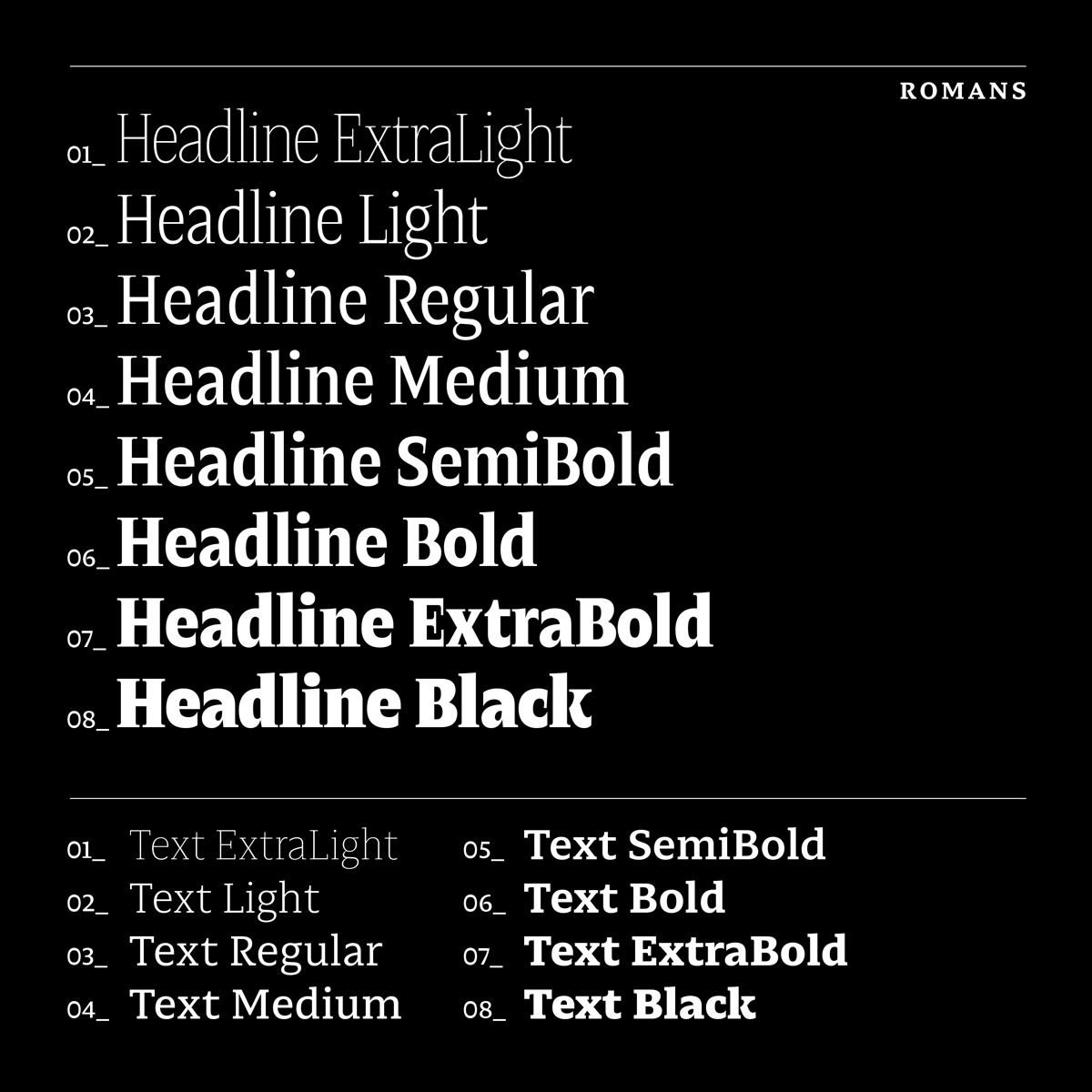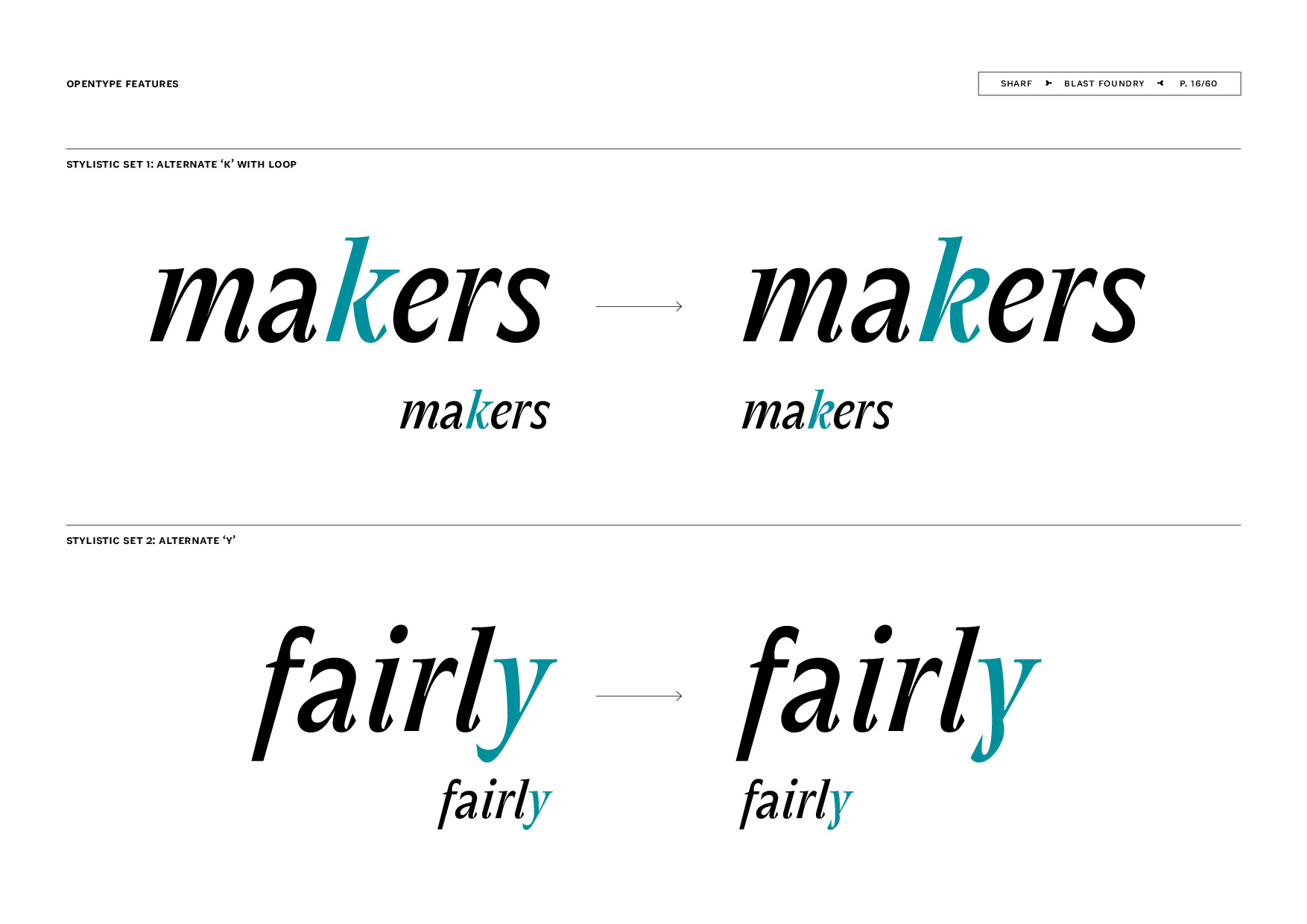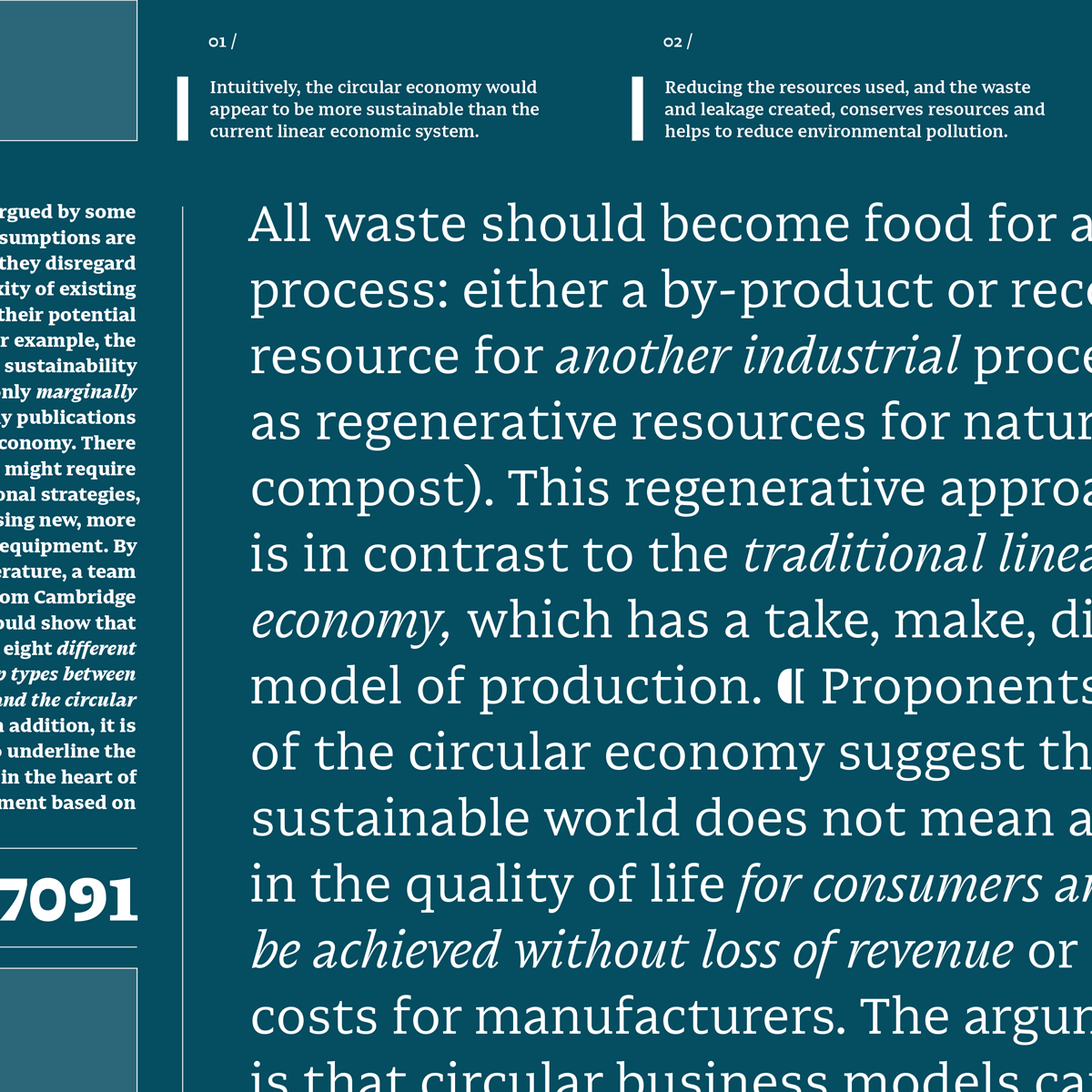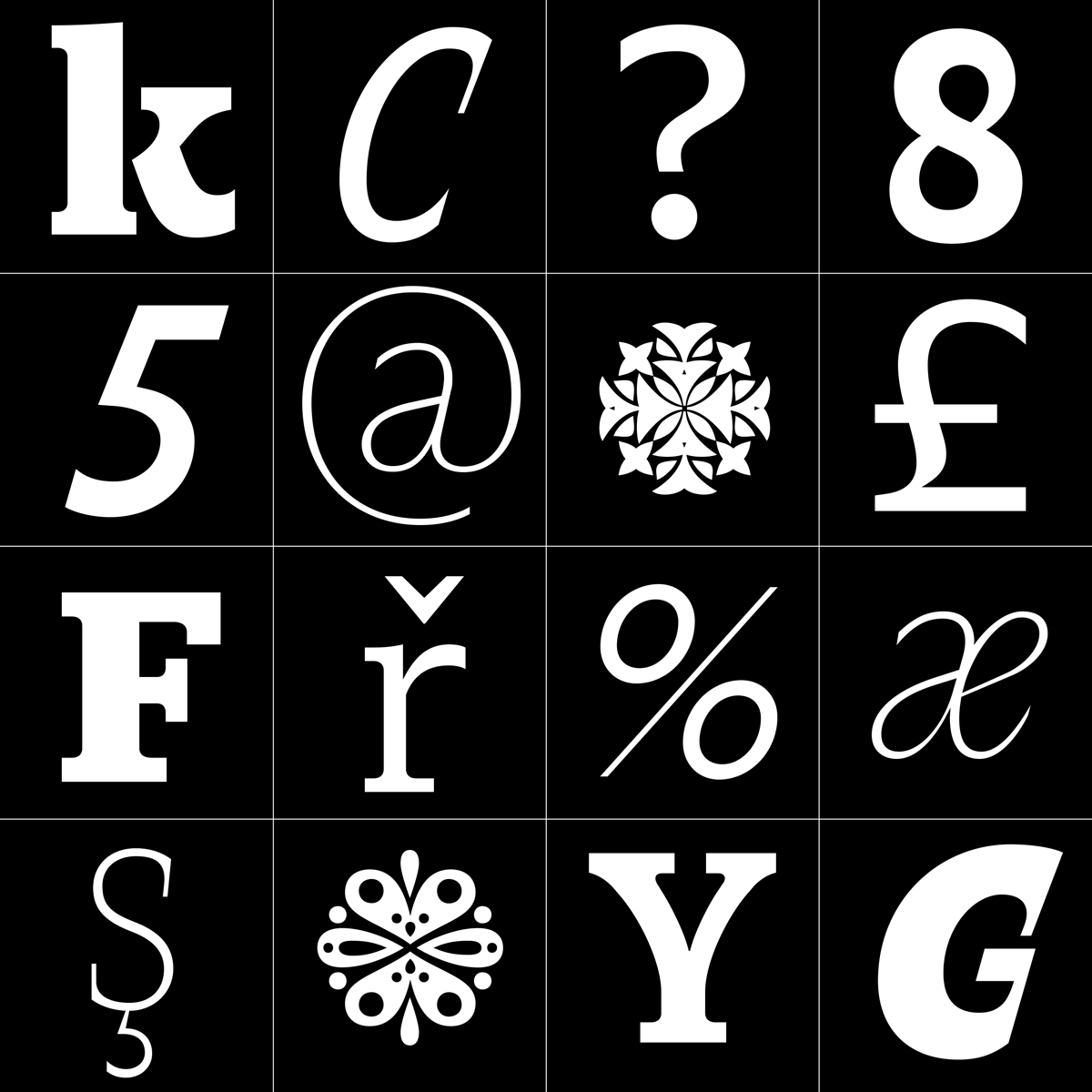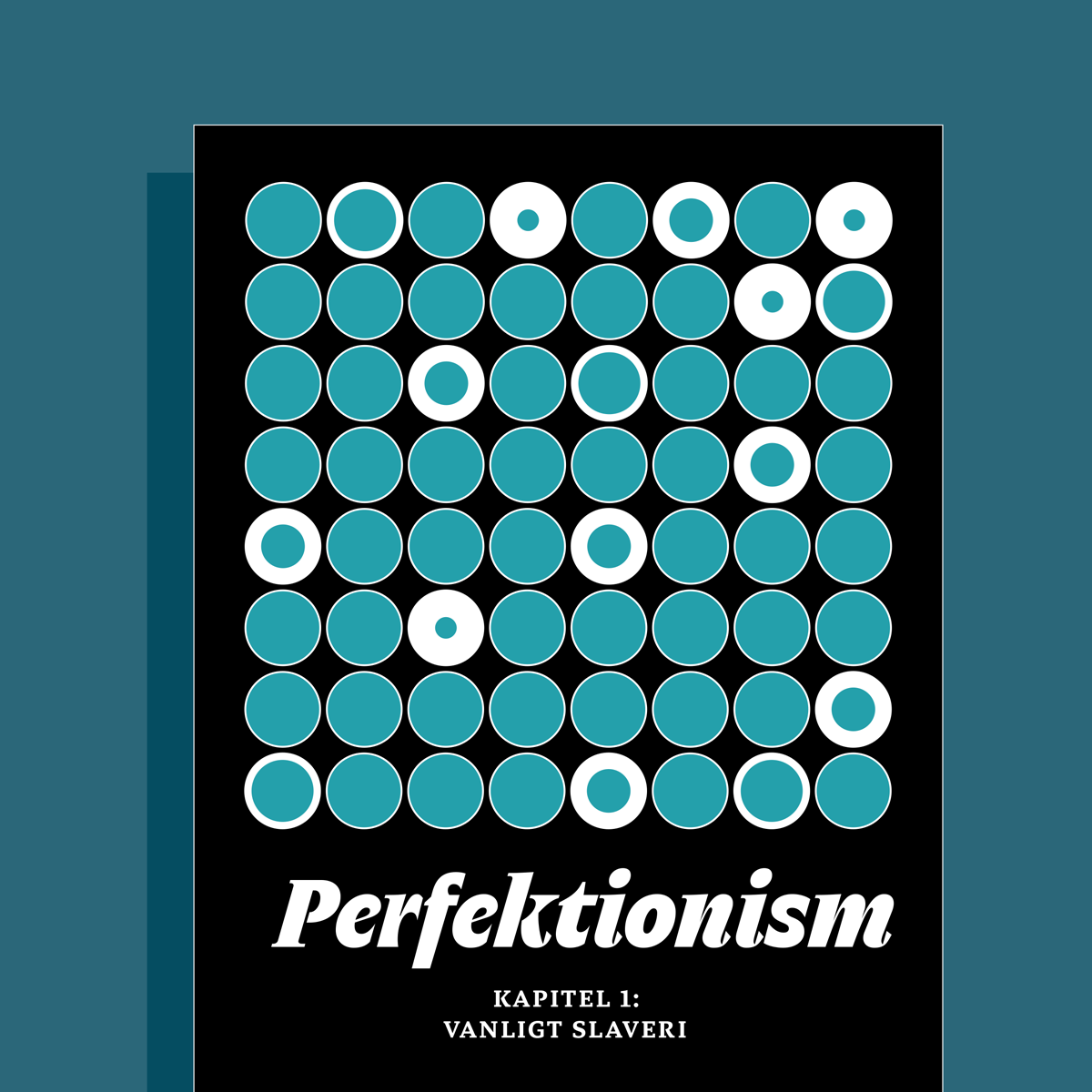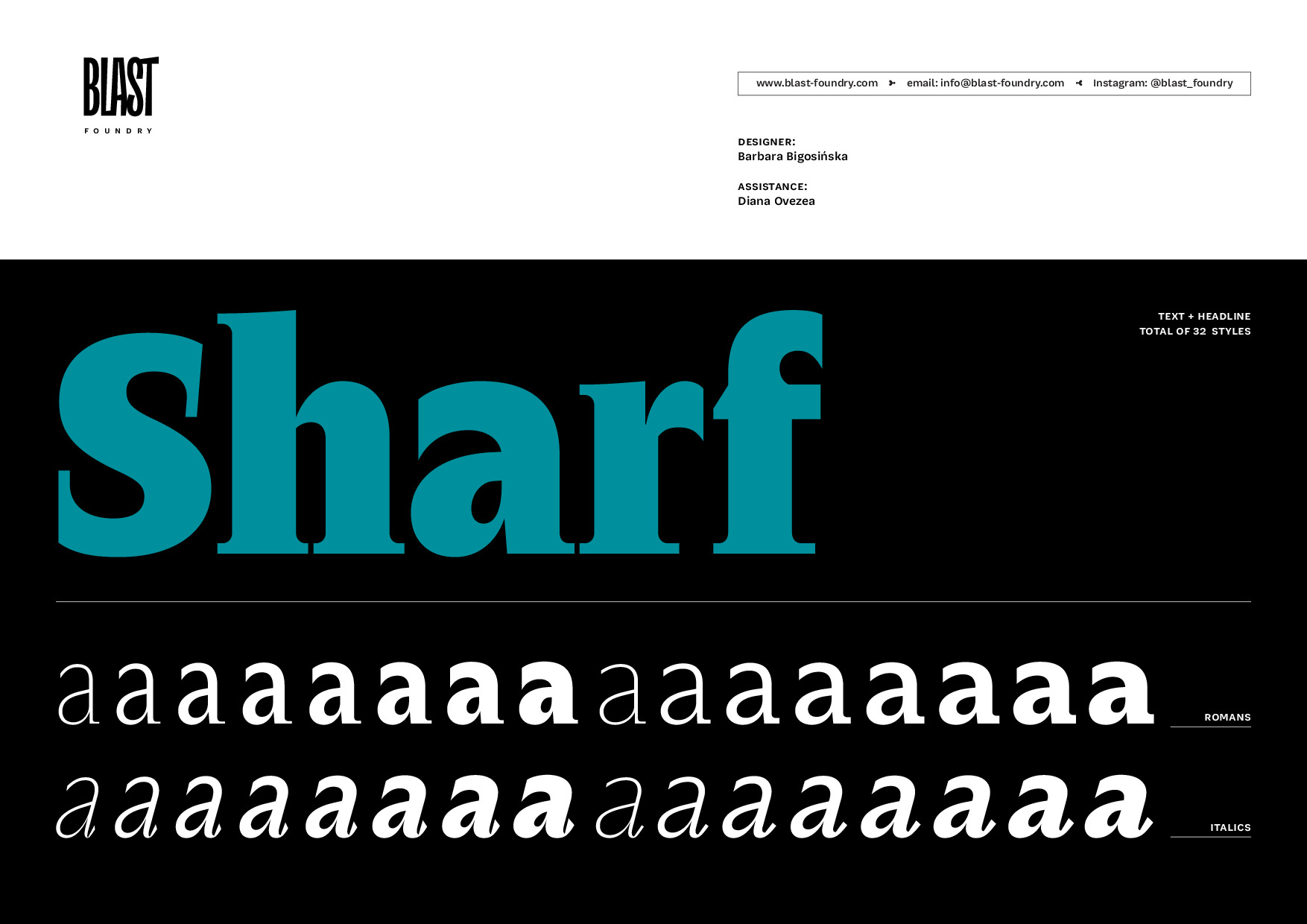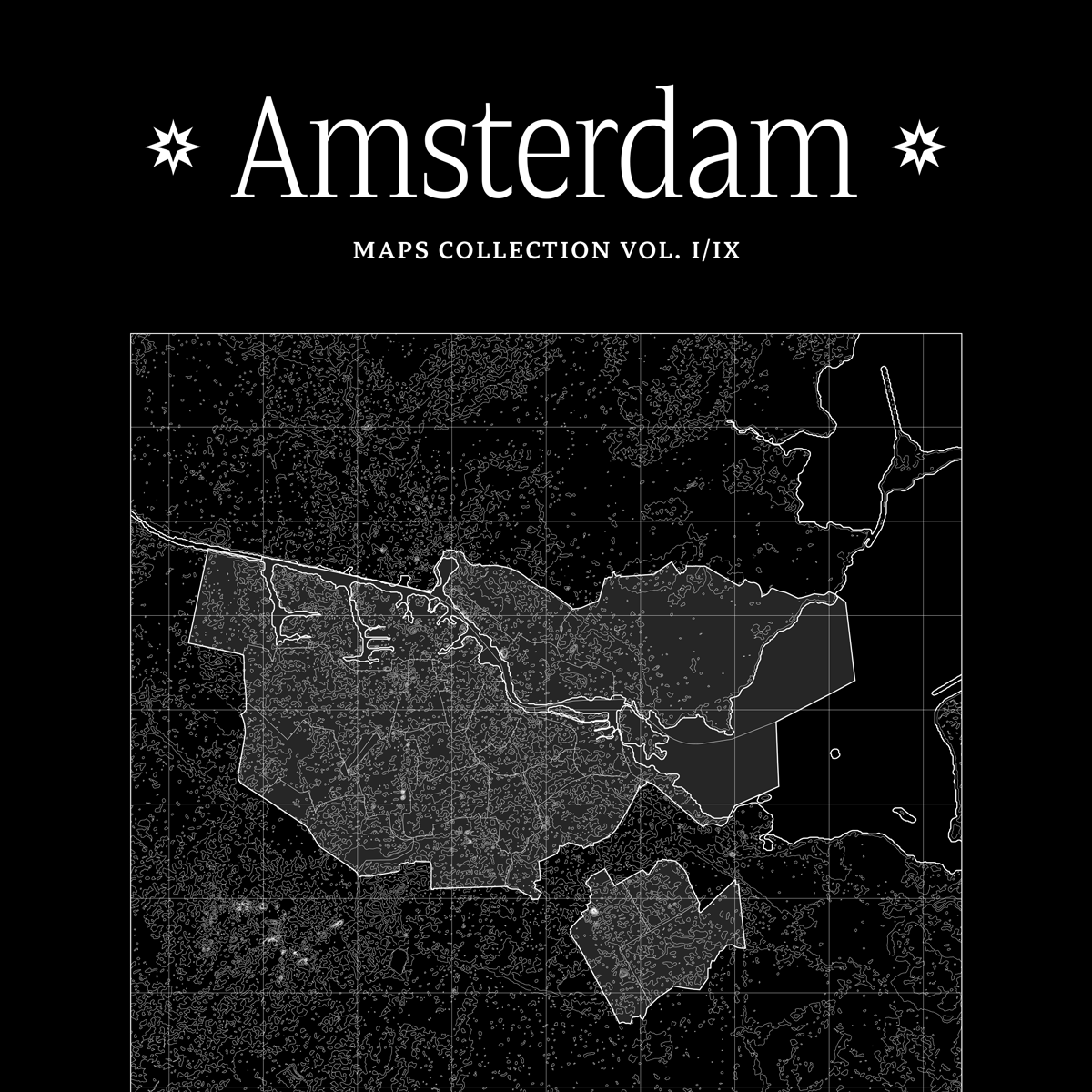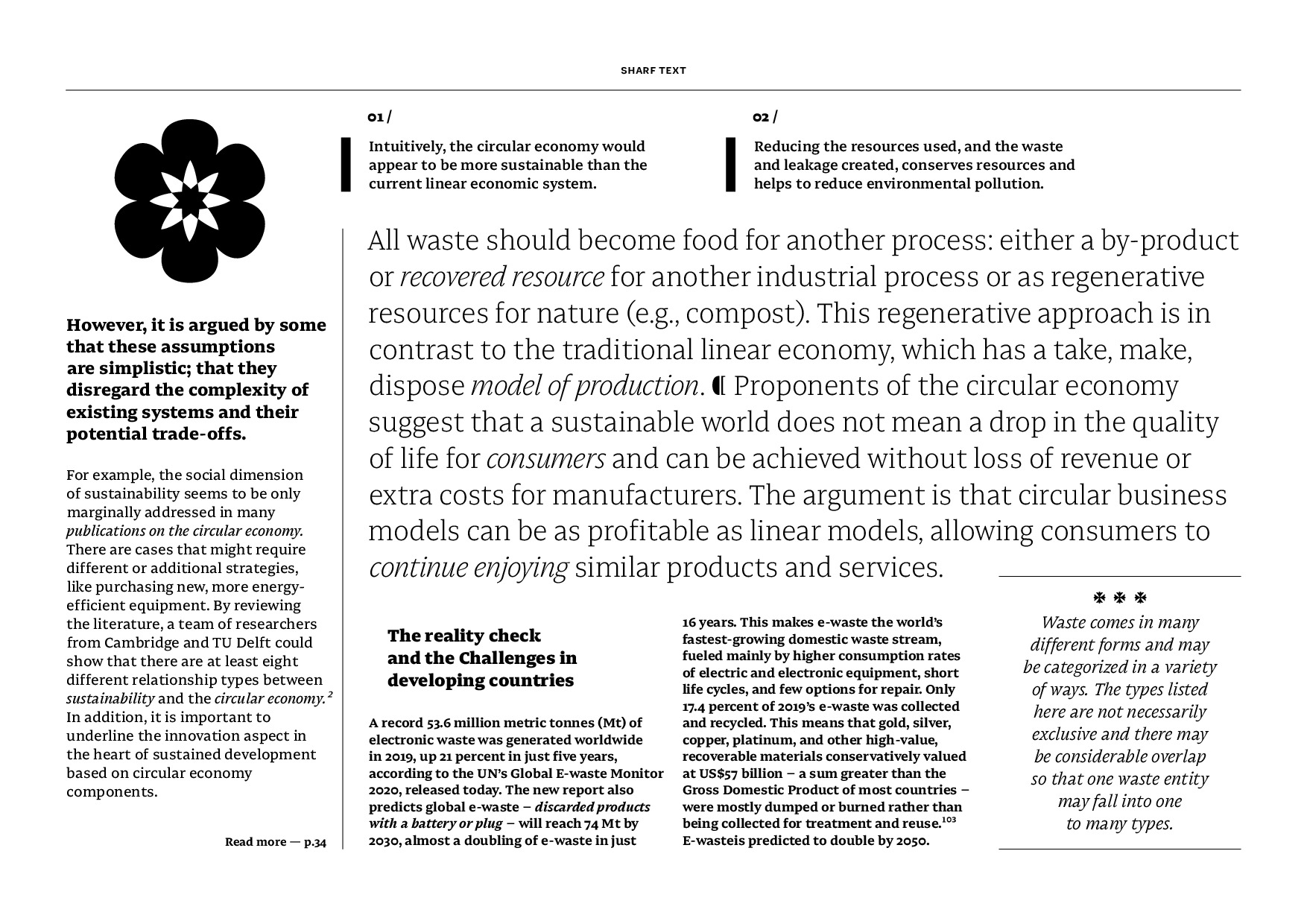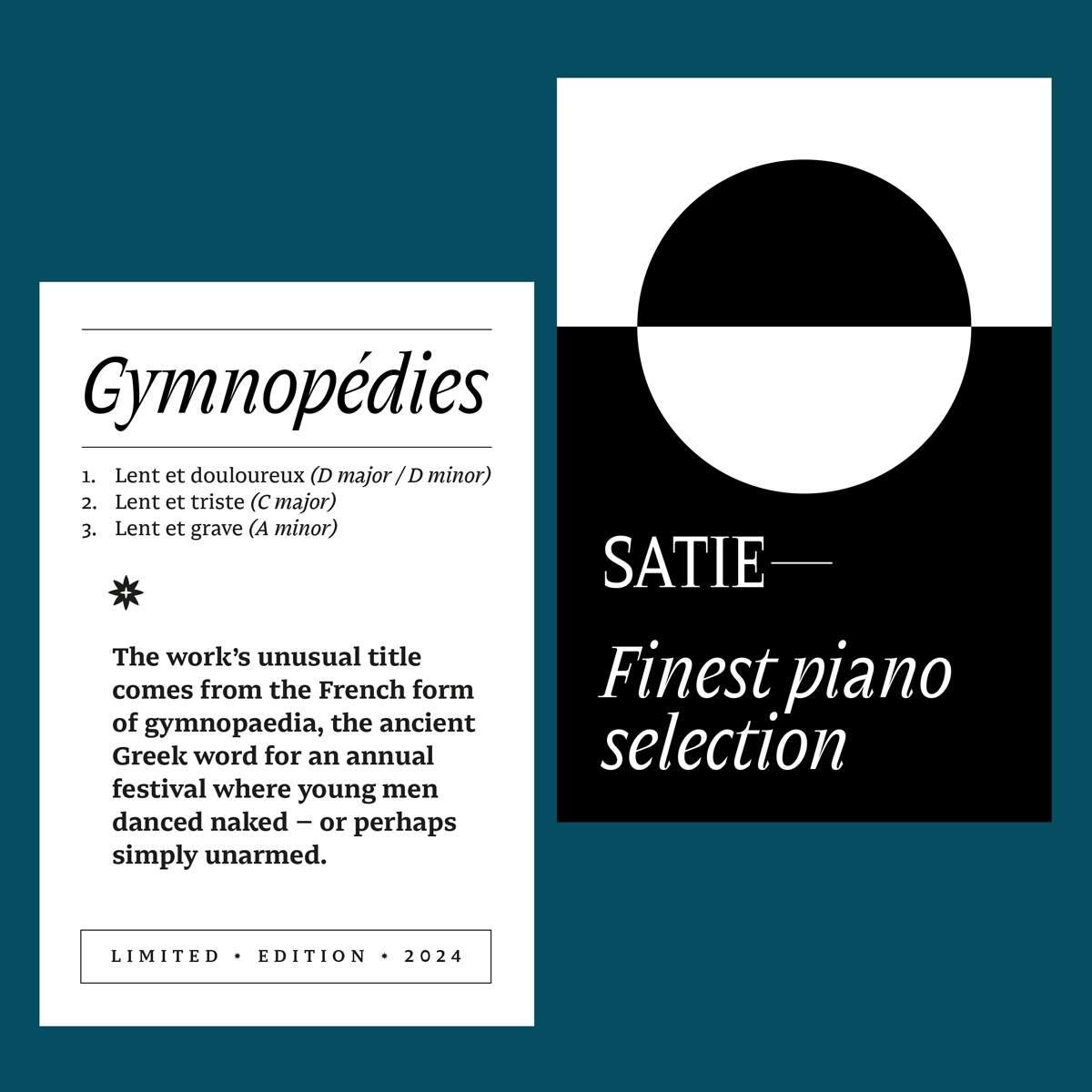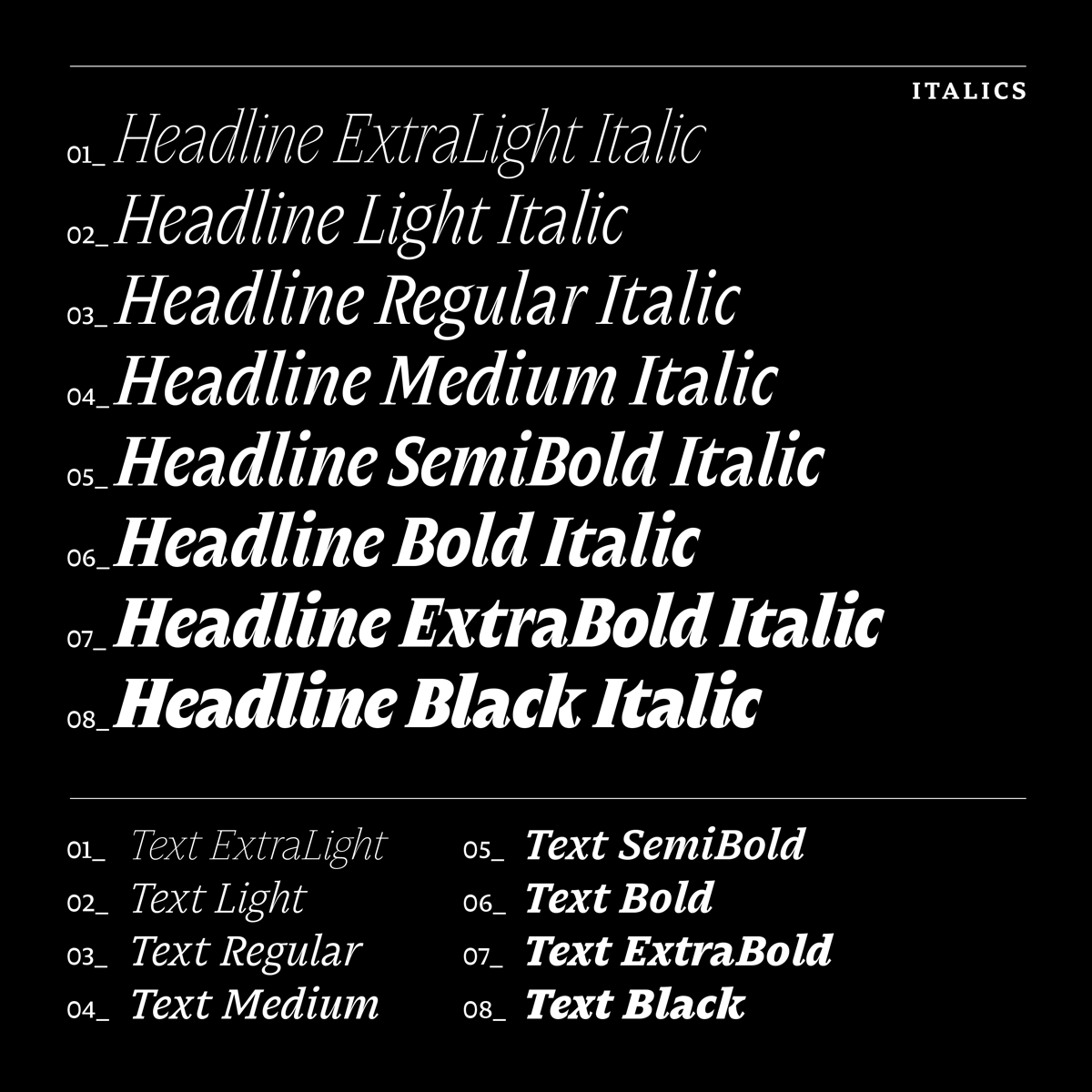
Sharf
▶ Designed by Barbara Bigosińska, 2024 ◀
2 sub-families • 6 weights • 24 styles
Sharf is an editorial type family with an experimental touch and unpredictable contrast changes between text and headline styles. Text styles are rather calm and conventional with elegant character, whereas the headline styles surprise with their eccentricity.
Sharf marries many ideas that perhaps should not exist next to each other in any kind of harmony, but we believe that many different narrations, shapes, beings can co-exist at different extremes of the design spectrum; and what is in-between might be an interesting surprise.